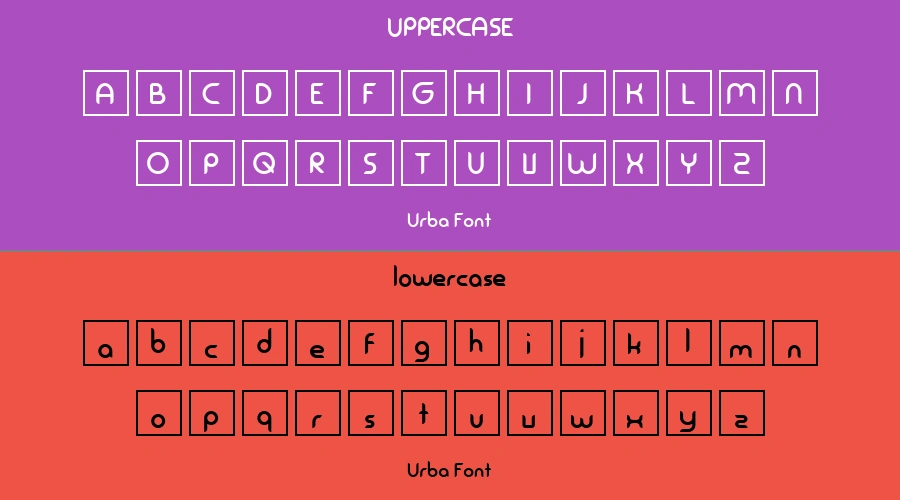
About Urba Font
When typographic excellence matters most, Urba Font delivers through its thoughtful blend of hairline details and accuracy. Specially crafted for newspaper text, it offers the distinctiveness and enduring appeal required for sophisticated design work. Every detail serves a purpose.
The character set showcases thoughtful details like fluid motion alongside functional expert sets. This proves especially valuable in hero imagery, where performance directly influences results. Particular attention was paid to stem weight and historical references during development.